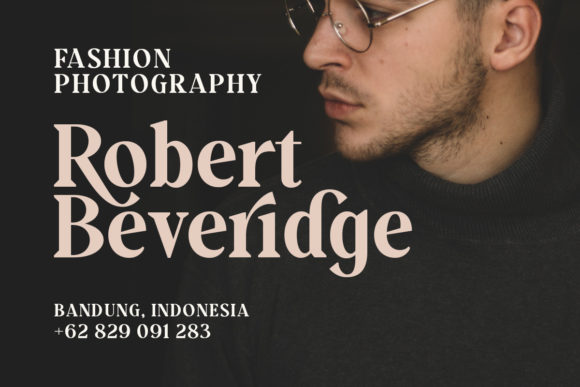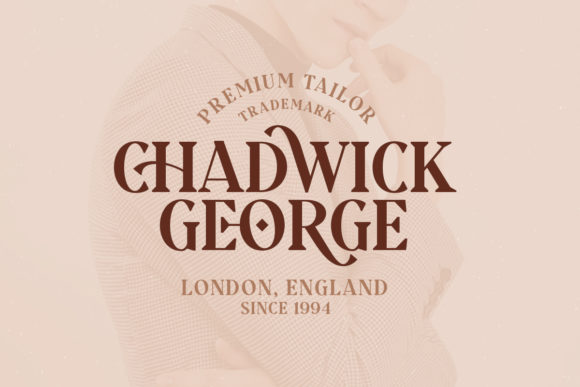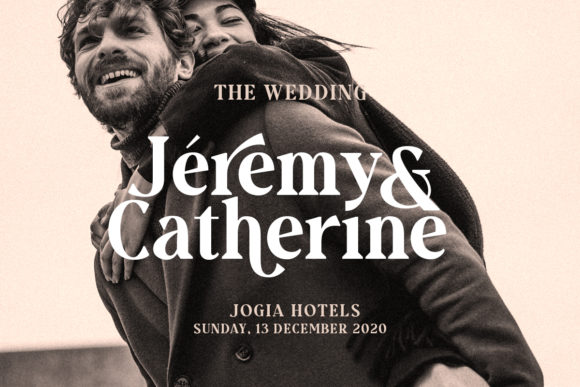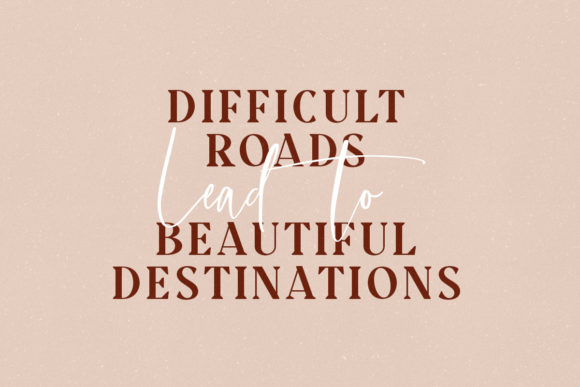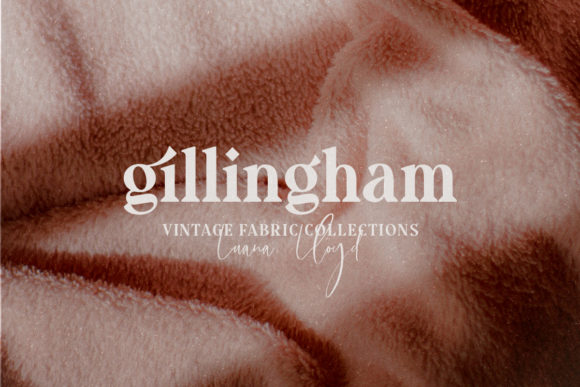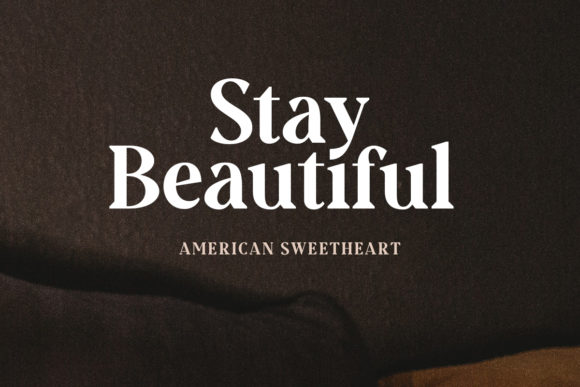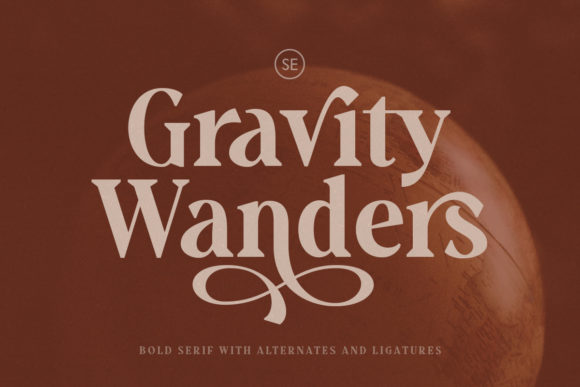
Introducing Gravity Wanders Font: Elevate Your Designs with Elegance
Are you tired of using the same old fonts for your designs? Look no further! Gravity Wanders Font is here to revolutionize the way you create stunning presentations, logos, and more. This stylish and elegant serif font is packed with a plethora of ligatures and alternates that will take your designs to the next level.
What Makes Gravity Wanders Font So Special?
Gravity Wanders Font boasts a range of features that set it apart from your average font. Here are just a few reasons why designers and crafters are falling in love with this font:
• Stylish and Elegant Design: Gravity Wanders Font exudes sophistication and refinement, making it perfect for high-end designs, luxury brands, and creative projects.
• Ligatures and Alternates Galore: With a vast array of ligatures and alternates, you can add a touch of personality to your text and make it truly unique.
• PUA Encoded for Easy Access: This font is PUA (Private Use Area) encoded, which means you can easily access all the glyphs and swashes without any hassle.
Gravity Wanders Font is incredibly versatile and can be used for a wide range of design projects, including:
• Logos and Branding: Create a lasting impression with a custom logo that showcases your brand’s personality and style.
• Presentations and Slideshows: Add a touch of elegance to your presentations and make them more engaging and memorable.
• Stationery and Packaging: Elevate your stationery and packaging designs with a sophisticated font that exudes luxury and refinement.
• Digital and Print Media: Use Gravity Wanders Font in your digital and print media, such as brochures, flyers, and social media graphics.
Why Choose Gravity Wanders Font?
With so many fonts available, why choose Gravity Wanders Font? Here are just a few reasons why designers and crafters are choosing this font:
• Unique and Eye-Catching: Gravity Wanders Font is sure to grab attention and make your designs stand out from the crowd.
• High-Quality and Professional: This font is designed with high-quality and professionalism in mind, making it perfect for commercial and personal projects.
• Easy to Use: With its PUA encoding, you can easily access all the glyphs and swashes, making it simple to use and customize.
Tips for Using Gravity Wanders Font
To get the most out of Gravity Wanders Font, here are a few tips to keep in mind:
• Experiment with Ligatures and Alternates: Don’t be afraid to try out different ligatures and alternates to add some personality to your text.
• Use it in Combination with Other Fonts: Gravity Wanders Font pairs well with a range of other fonts, so feel free to experiment with different combinations.
• Pay Attention to Font Size and Style: Make sure to adjust the font size and style to suit your design and ensure that it reads well.